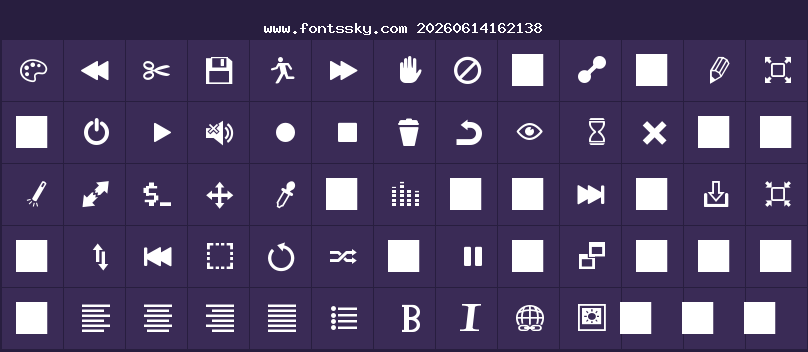
Heydings Controls Preview
• Font Name: Heydings Controls
• Full Font Name: Heydings Controls
• Designer: Heydon Pickering
• Description: Heydings Controls is a set of generic interaction controls and cues for use in javascript powered applications and Adobe Flash projects. It is free to embed via CSS's @font-face in websites. This font is designed to accompany 'Heydings Icons', a similar set of more general signifiers to be used alongside textual elements and buttons (typically on web pages). More information is available here: http://www.heydonworks.com/a-free-icon-web-font